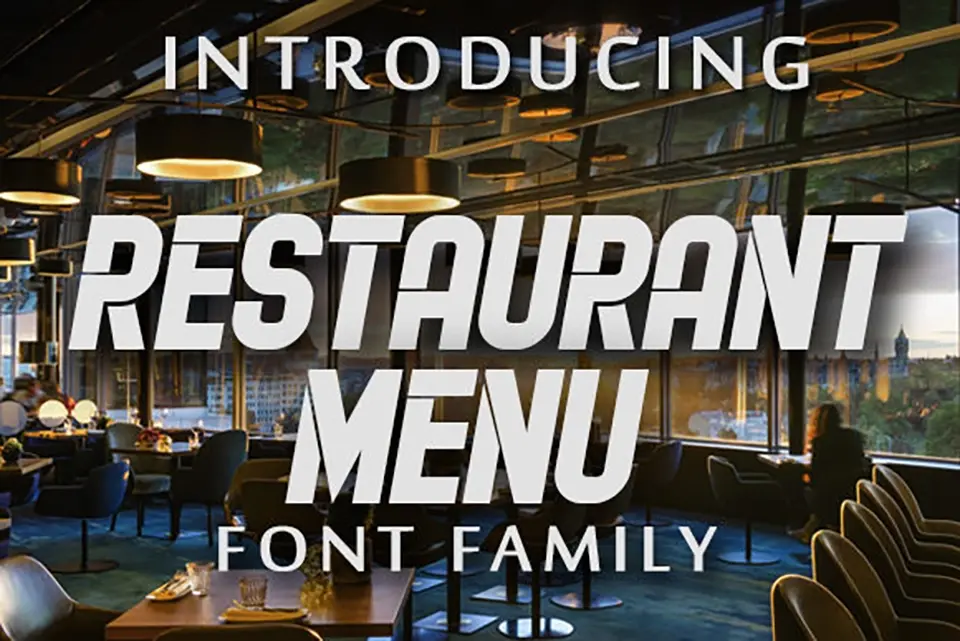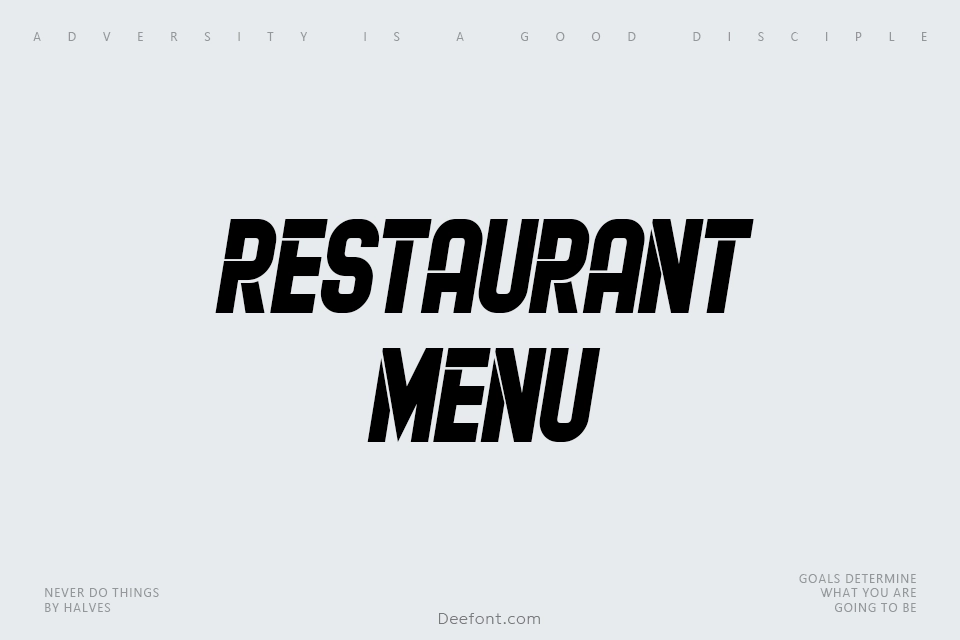
Restaurant Menu Font
Restaurant Menu is a distinctive display font designed for menu applications and decorative purposes. Created by Vladimir Nikolic, this versatile typeface features four variants including Regular, Hollow, Book, and Book College versions. The font delivers elegant and professional typography ideal for restaurant branding, menu design, and hospitality projects. With its clean lines and contemporary aesthetic, Restaurant Menu combines readability with visual sophistication, making it perfect for businesses seeking to elevate their culinary presentation while maintaining clarity and impact in both print and digital mediums.